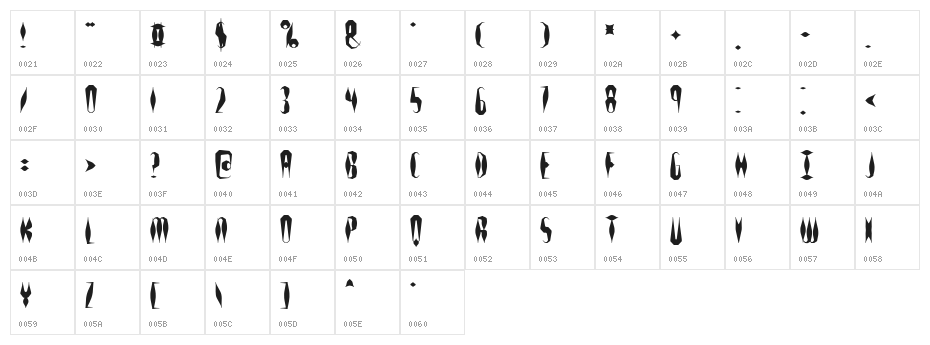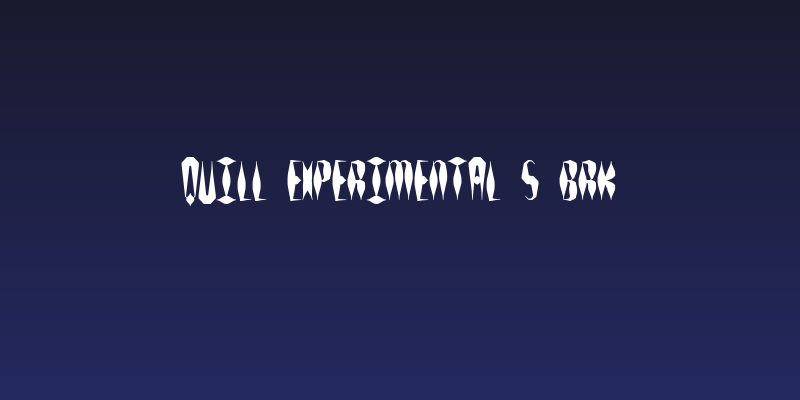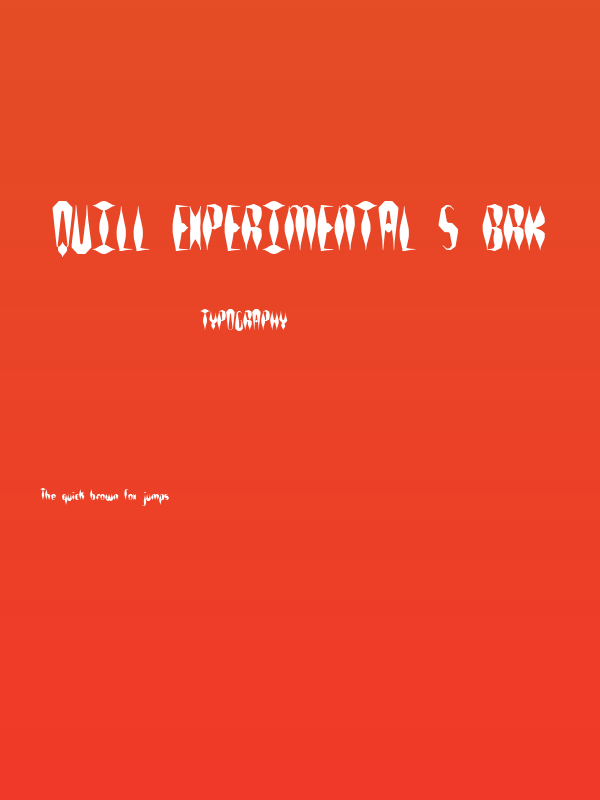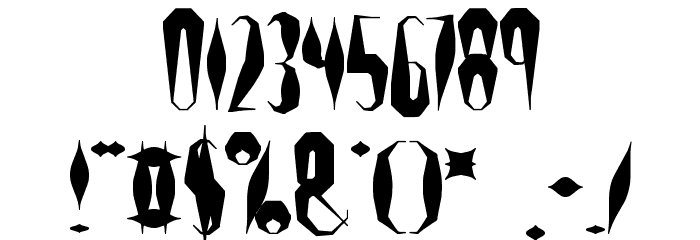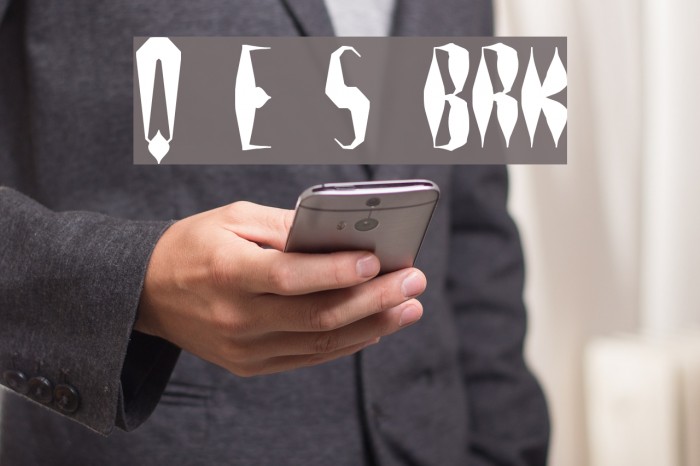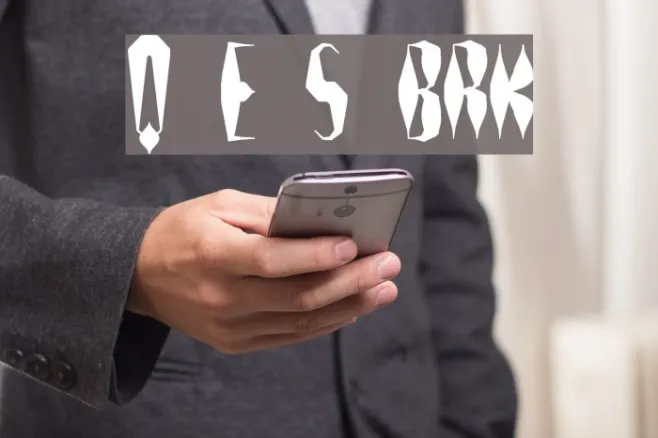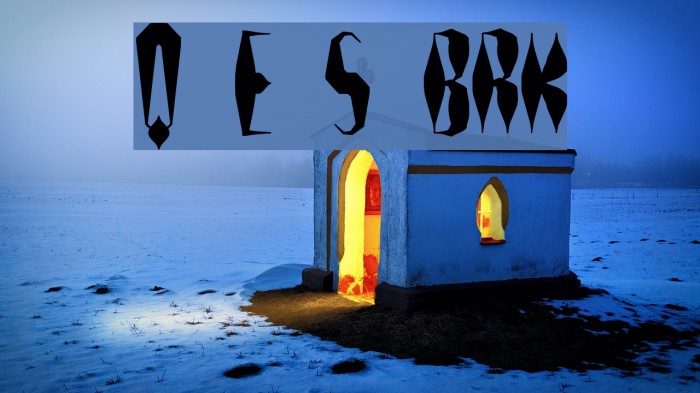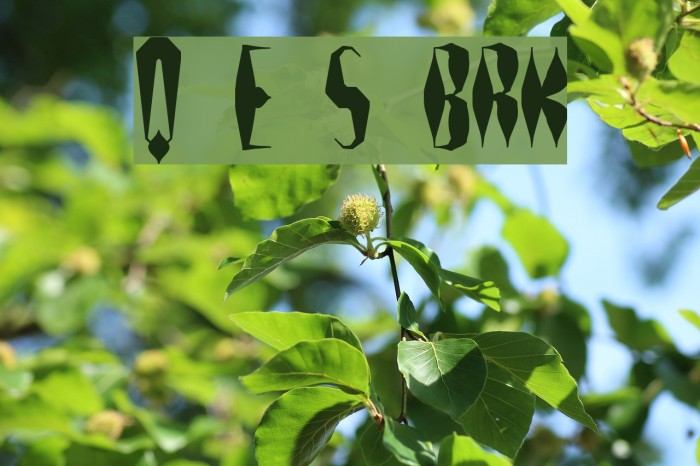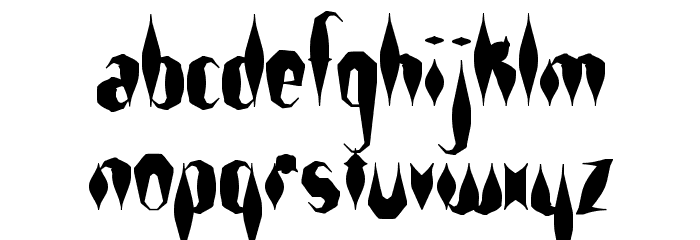
Quill Experimental S BRK Font
Quill Experimental S BRK Description
This font features a highly stylized and experimental design, characterized by sharp, angular edges and a bold, dramatic presence. The uppercase and lowercase letters exhibit a unique, almost abstract form, with exaggerated vertical strokes and pointed terminals. The numbers and special characters maintain this distinctive style, contributing to a cohesive and striking visual identity. The font's unconventional shapes and high contrast make it particularly suitable for creative and artistic projects where a bold statement is desired.
| Categories | Gothic |
| Overall Style | Modern, Decorative |
| Use Case | Headlines, Logos, Artistic projects |
| Proposed Projects | Ideal for album covers, posters, branding for edgy or avant-garde products, and any design project requiring a bold, artistic flair. |